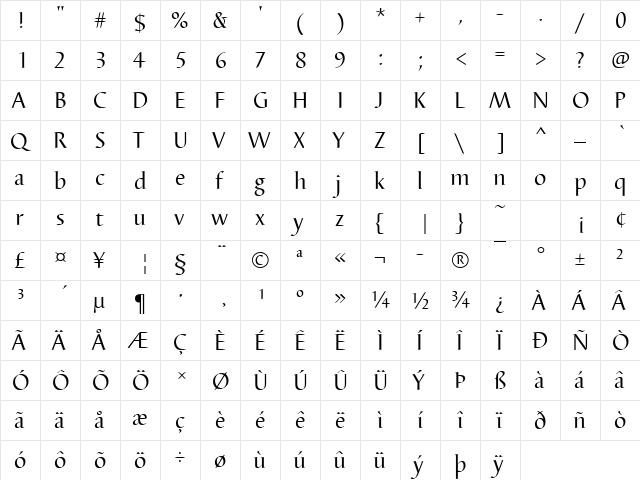
BarbedorT Regular
Design Context for BarbedorT Typeface
BarbedorT is a composed and adaptable typeface that performs quietly and consistently across a wide range of design contexts.
Pro Tip: Pair BarbedorT with a font of contrasting weight or personality to build a more expressive typographic hierarchy.